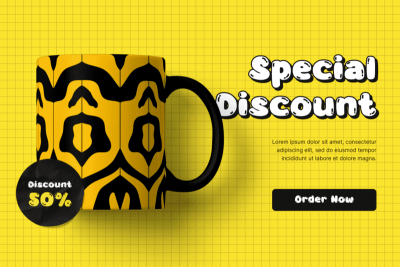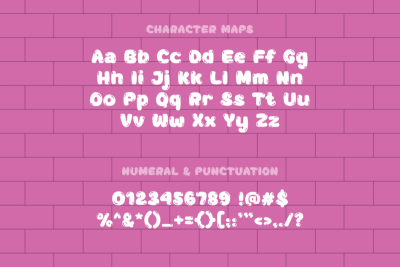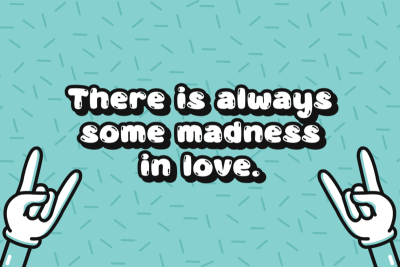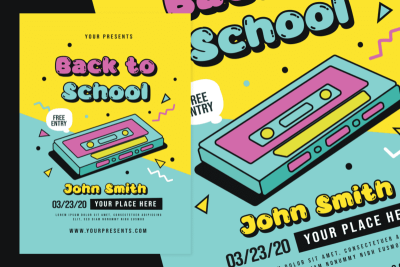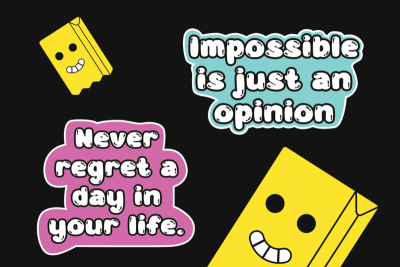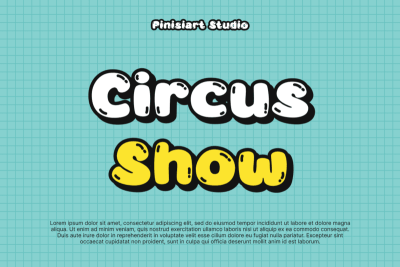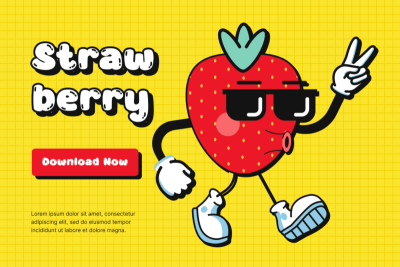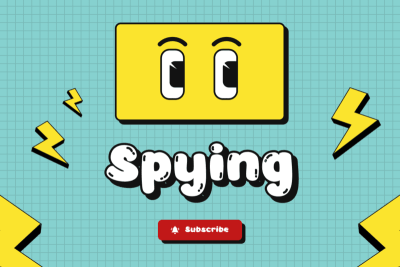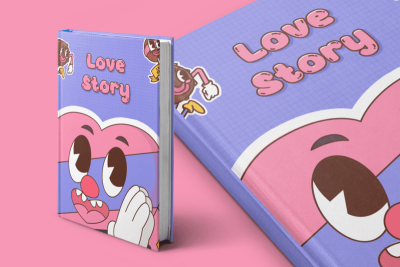
Bubble Font Happy Dance
Happy Dance
Bubble Font Happy Dance brings a joyful, energetic vibe inspired by the 90s. Its rounded, playful letterforms capture the essence of a carefree, nostalgic era, making it ideal for projects that want a retro touch with a modern twist. Furthermore, the font’s bold, bubbly style creates an instant sense of fun. Despite its quirky look, it remains easy to read and engaging. Designed with a cartoon-like aesthetic, Happy Dance has thick, rounded lines that naturally draw attention.
Additionally, this font’s cheerful style works well in both digital and print formats. Each letter has a bold and dynamic presence, which enhances visual impact. It stands out especially when paired with bright, lively colors. The rounded edges give it a warm, approachable quality, ideal for designs that need a friendly, inviting look. Overall, Happy Dance brings a playful spirit to any project. It’s perfect for posters, social media, and event materials, and it’s a great option for designers seeking a lively, 90s-inspired aesthetic.
Bubble Font Happy Dance Ideal for
Happy Dance suits a wide range of audiences and needs. Its playful, cartoonish style is perfect for kids’ brands, teen-focused products, or projects that aim to evoke nostalgia. For example, brands centered on toys, children’s clothing, and educational materials will benefit from its charm. Moreover, the font’s bold, friendly appearance also appeals to parents, making it ideal for designs that need to be both kid-friendly and adult-approved.
In addition, Happy Dance is great for event planners and marketers. It enhances visuals for posters, banners, and invitations for family-friendly gatherings. The font’s vibrant personality adds an upbeat vibe to any event materials, which helps build excitement and grab attention.
Social media creators can also use Happy Dance for a cheerful, unique look. Its energetic, retro style suits YouTube thumbnails, Instagram posts, and TikTok content. It’s especially effective for channels focused on entertainment, lifestyle, or creative tutorials. Thanks to its bold design, posts stand out in crowded feeds, leaving a lasting impression.
In summary, Happy Dance blends retro charm with modern fun. Its lively, cheerful style is a top choice for kids’ brands, event organizers, and social media creators. Ultimately, it’s perfect for giving any project a bold, friendly edge.
Disco vibes, are fun, bold, blobby, and give a huge impact on the projects you’re working on. Happy Dance is rocking the pop art style in its own way.